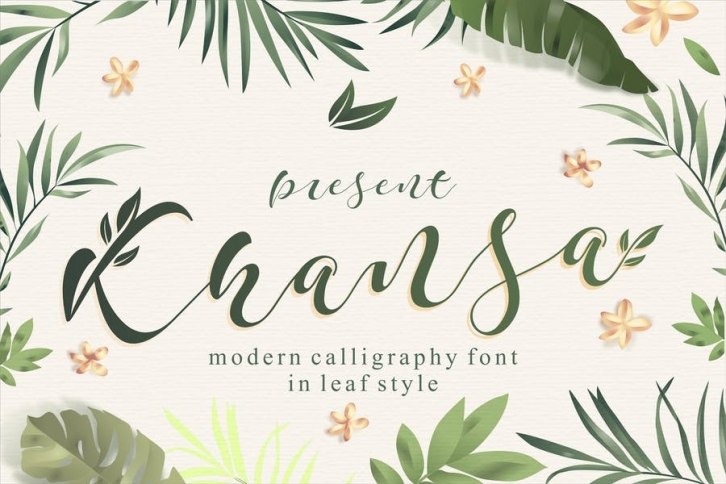
Khansa Modern Script Font
Khansa modern script with a handmade calligraphy style, decorative characters and a dancing baseline! So beautiful on invitation like greeting cards, branding materials, business cards, quotes, posters, logo and more!!